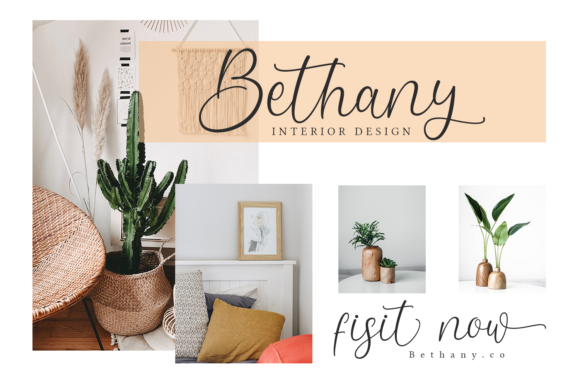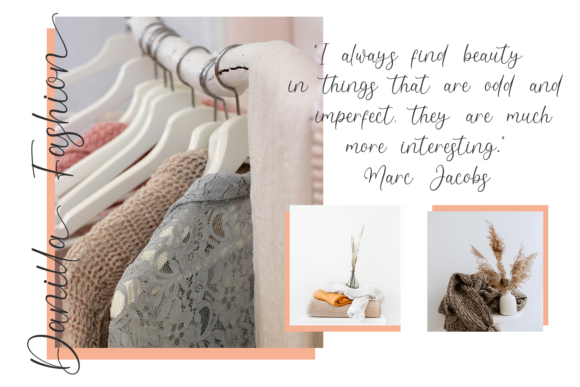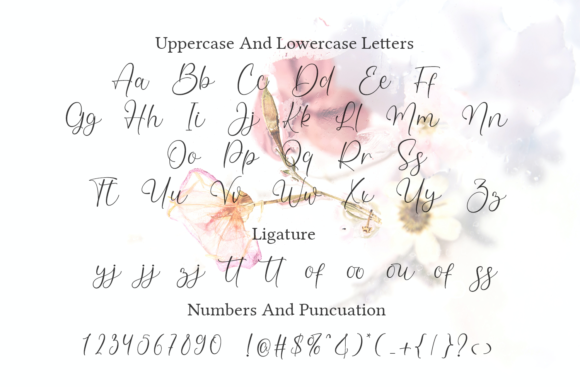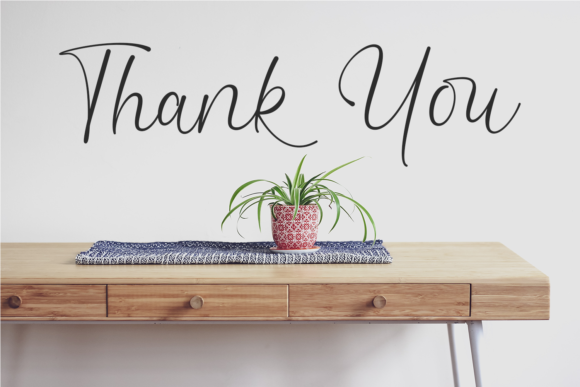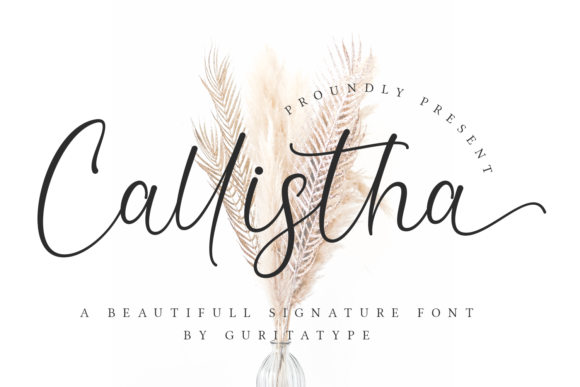
Introducing Callistha Font: A Timeless Handwritten Elegance
In the realm of typography, few fonts manage to capture the essence of elegance and delicacy as effortlessly as Callistha. This incredibly distinct, delicate, and timeless handwritten font has been making waves in the design community, and for good reason. Callistha’s unique charm lies in its ability to add a touch of sophistication and warmth to any design project, making it a favorite among designers and crafters alike.
The Versatility of Callistha
One of the standout features of Callistha is its versatility. This font is not limited to a specific type of design; rather, it can elevate a wide range of projects. Whether you’re working on wedding invitations, thank you cards, quotes, greeting cards, logos, or business cards, Callistha brings a level of elegance and personal touch that is hard to match. Its delicate strokes and classic feel make it an ideal choice for anyone looking to add a handwritten touch to their designs.
Callistha is PUA (Private Use Area) encoded, which is a significant advantage for designers. PUA encoding allows for easy access to all the glyphs and swashes, making it simple to incorporate intricate details and flourishes into your designs. This feature is particularly useful for those who want to create custom and unique pieces without the hassle of complicated font management.
Why Designers and Crafters Love Callistha
Designers and crafters are drawn to Callistha for several reasons:
- Elegance: Callistha exudes a sense of elegance and sophistication, making it perfect for designs that require a touch of class.
- Readability: Despite its delicate nature, Callistha remains highly readable, even at smaller sizes.
- Flexibility: The font’s versatility means it can be used in a variety of contexts, from formal to informal designs.
- Aesthetic Appeal: The unique and timeless look of Callistha adds an aesthetic appeal that is hard to find in more generic fonts.
Using Callistha in Your Designs
Incorporating Callistha into your design projects is straightforward. Here are a few tips to get you started:
- Pair with Complementary Fonts: Callistha pairs well with clean, sans-serif fonts for a balanced look.
- Experiment with Sizes: Don’t be afraid to play with different sizes to emphasize certain parts of your design.
- Utilize Swashes: Take advantage of the PUA encoding to add beautiful swashes and glyphs to your text.
- Keep it Simple: Sometimes, less is more. Let Callistha be the focal point of your design without overcrowding it with too many elements.
Callistha is more than just a font; it’s a design element that can transform your projects with its delicate and timeless elegance. Whether you’re a professional designer or a crafter, Callistha offers the tools you need to create stunning and memorable designs. With its versatility, readability, and aesthetic appeal, it’s no wonder that Callistha has become a go-to choice for those looking to add a handwritten touch to their work. So, why settle for ordinary when you can create something extraordinary with Callistha?
Elevate your designs with the elegance and charm of Callistha. Discover the difference a beautiful, handwritten font can make in your work.